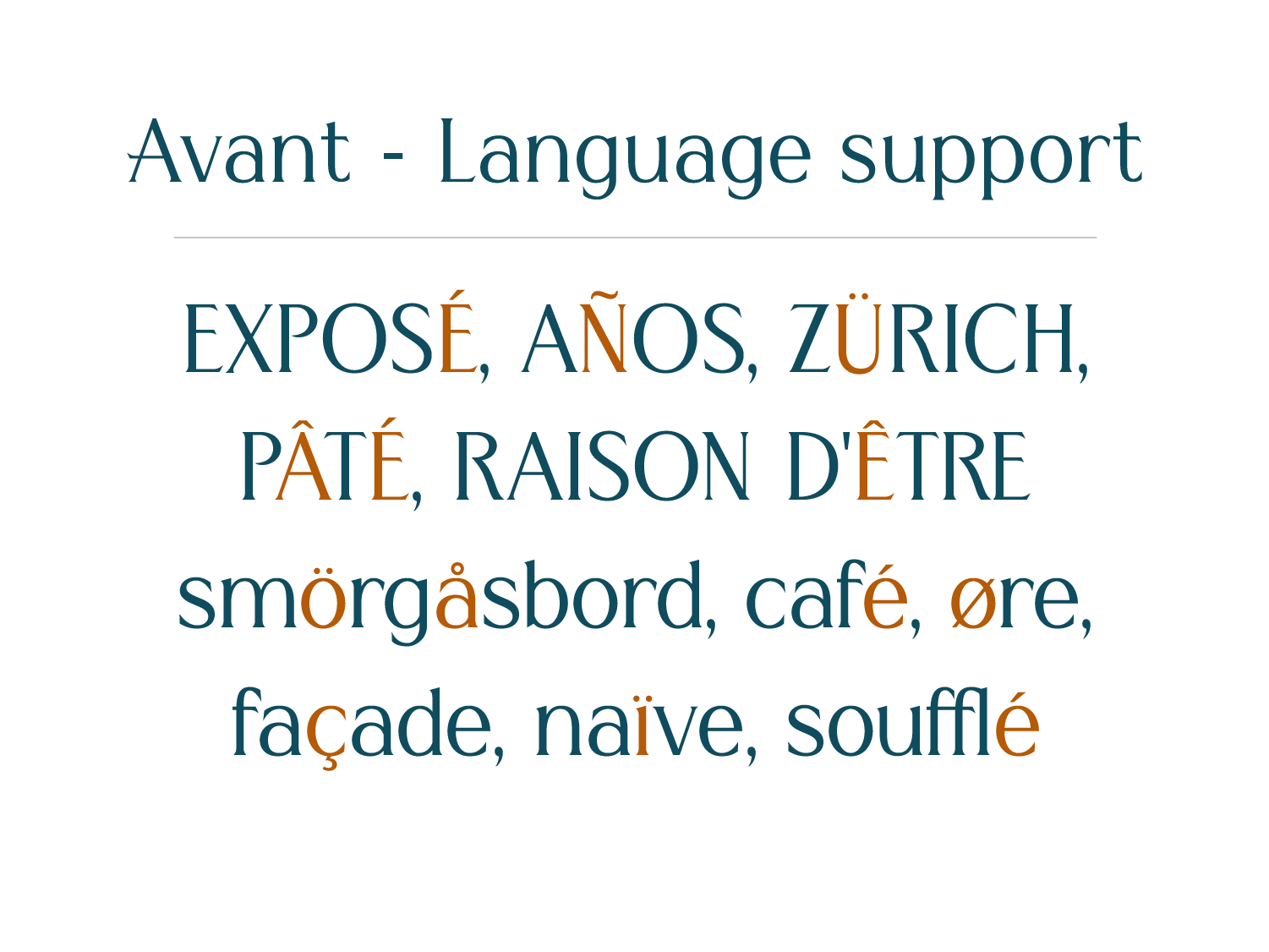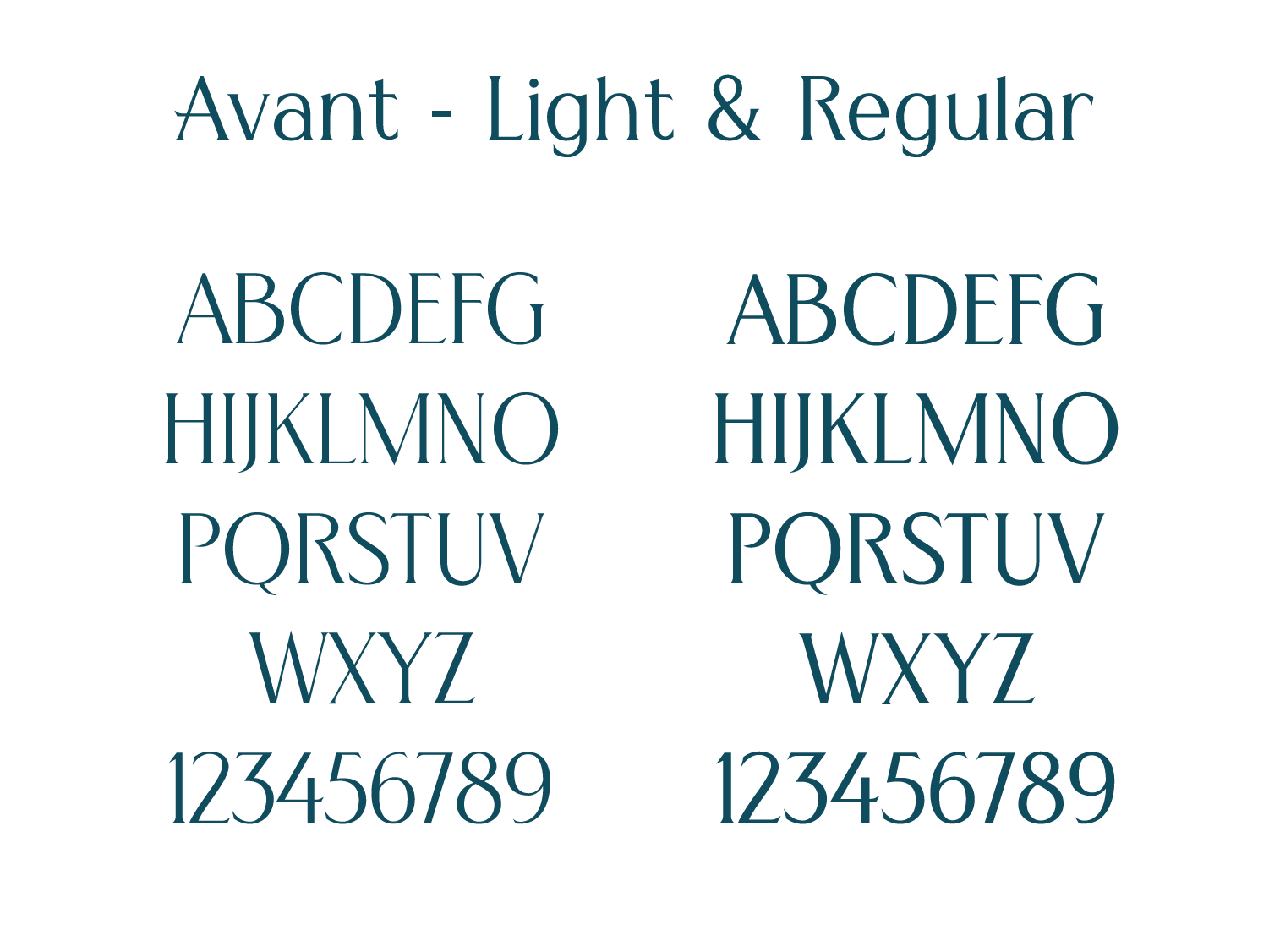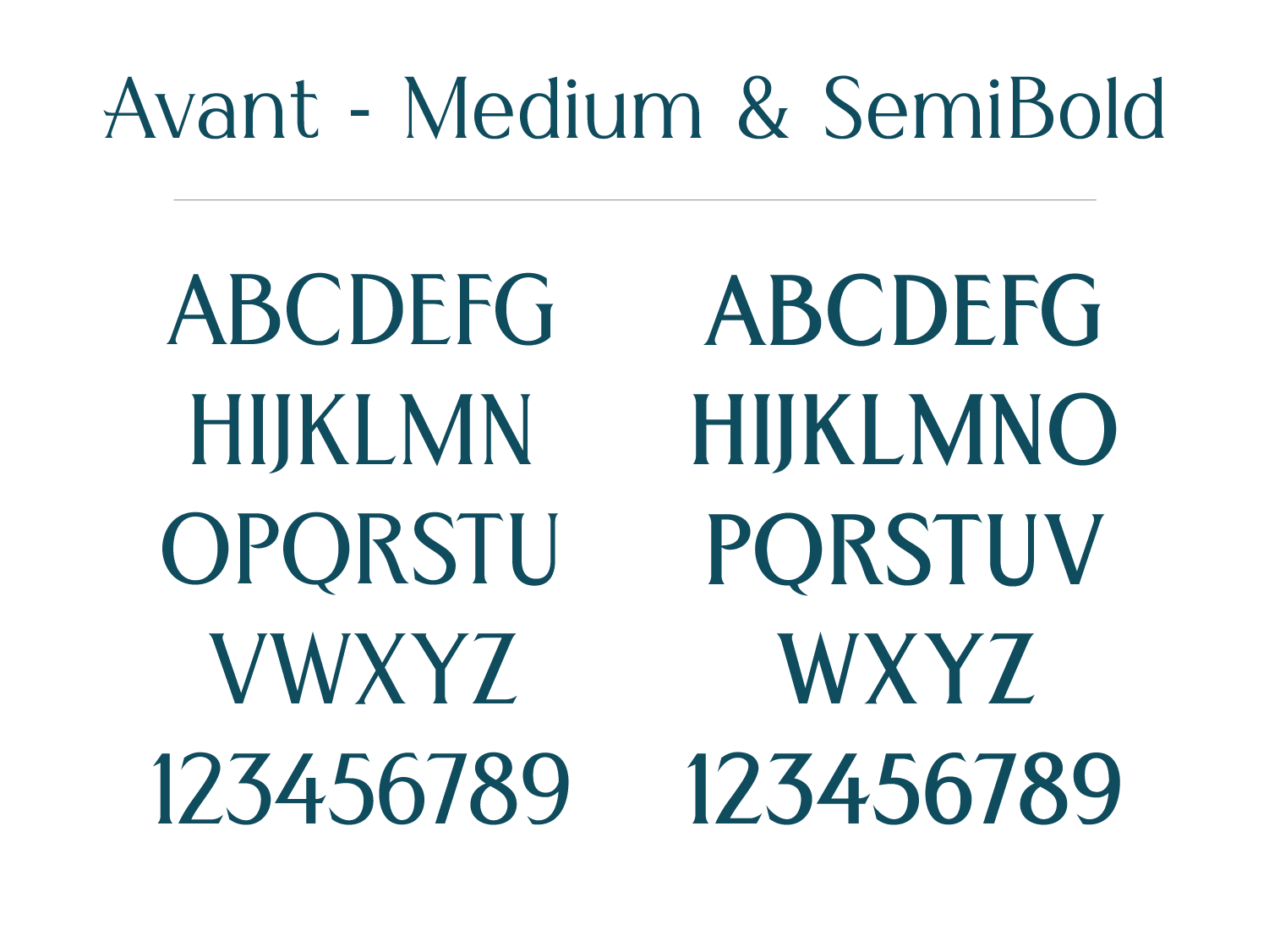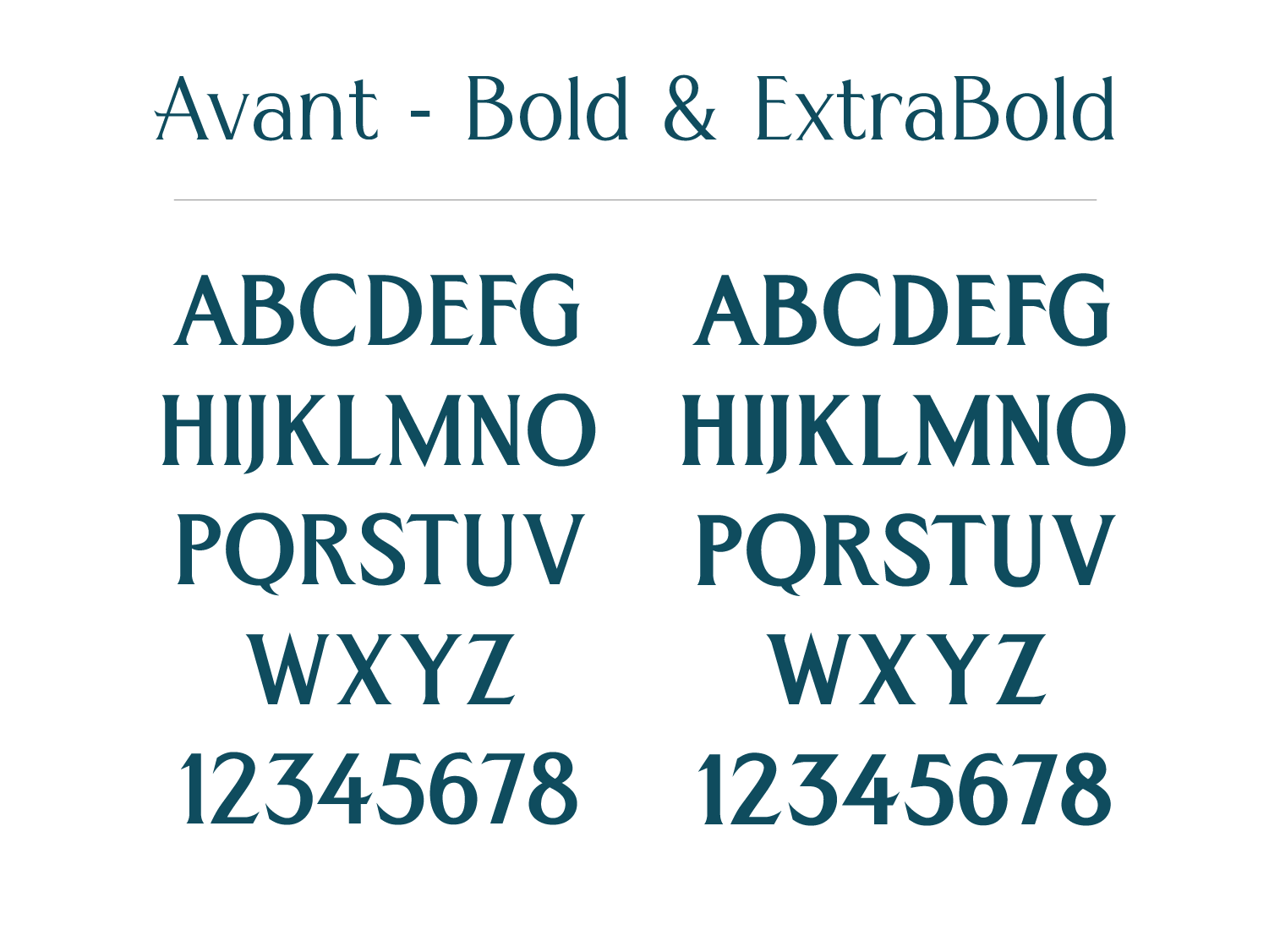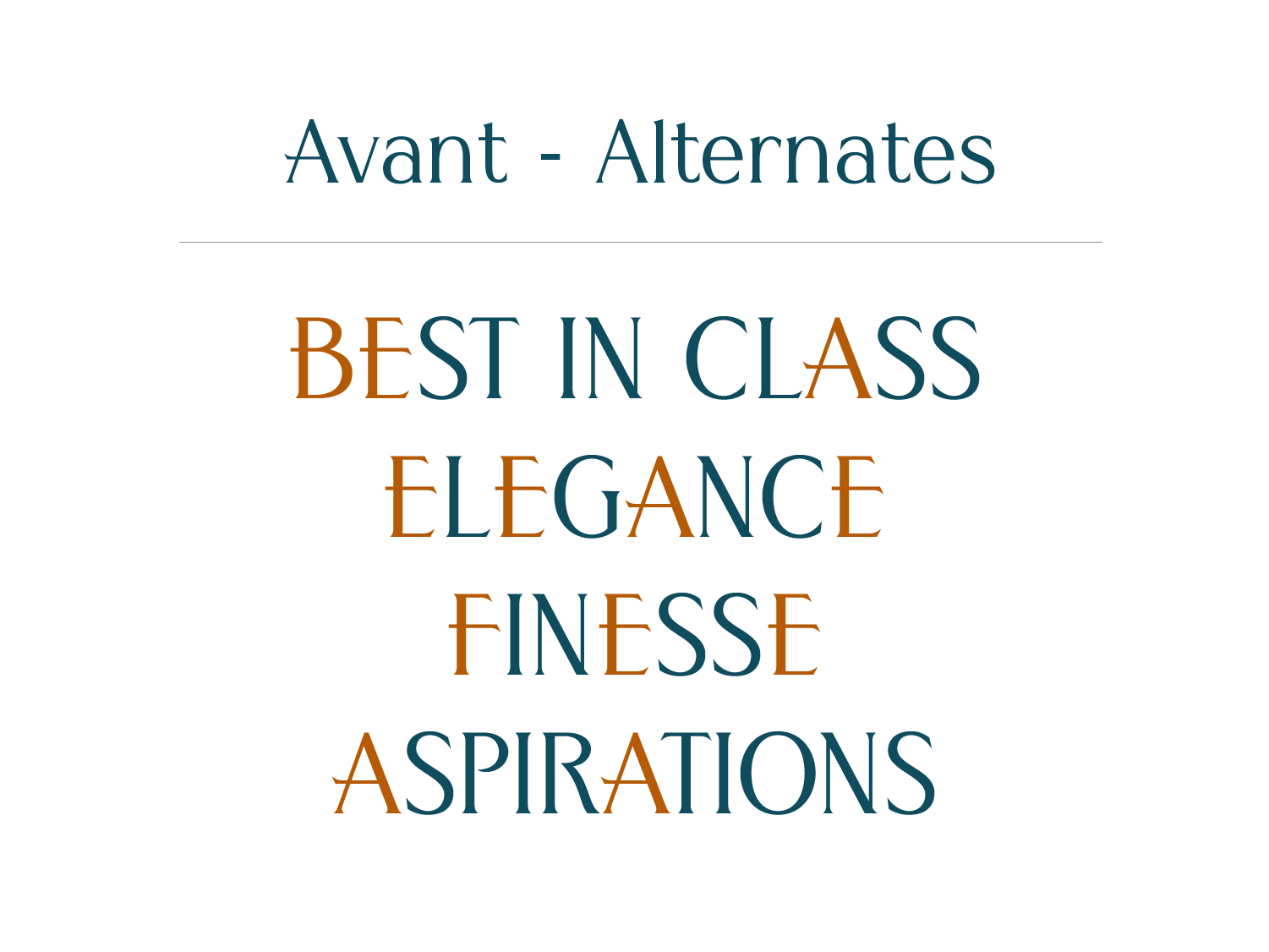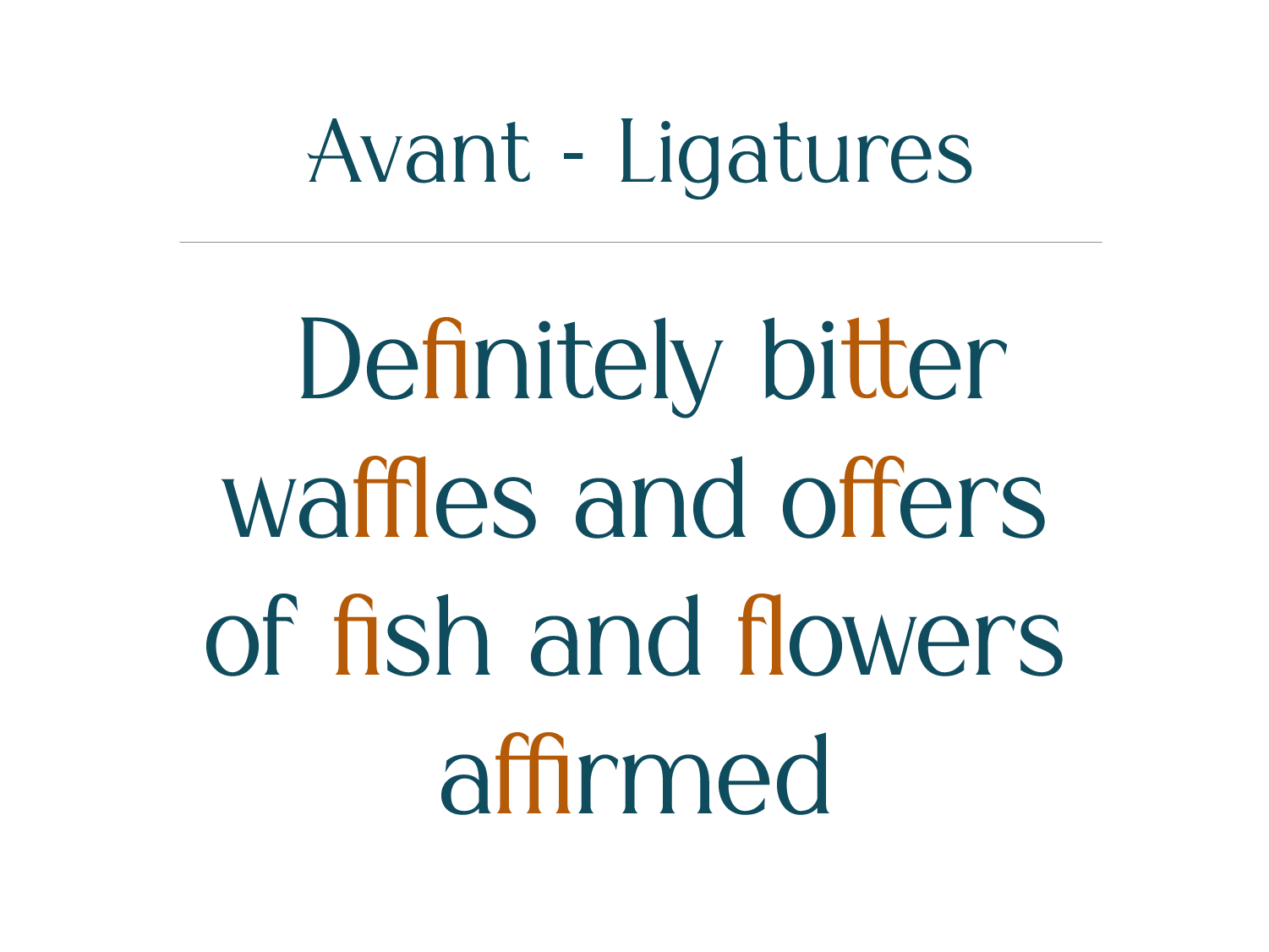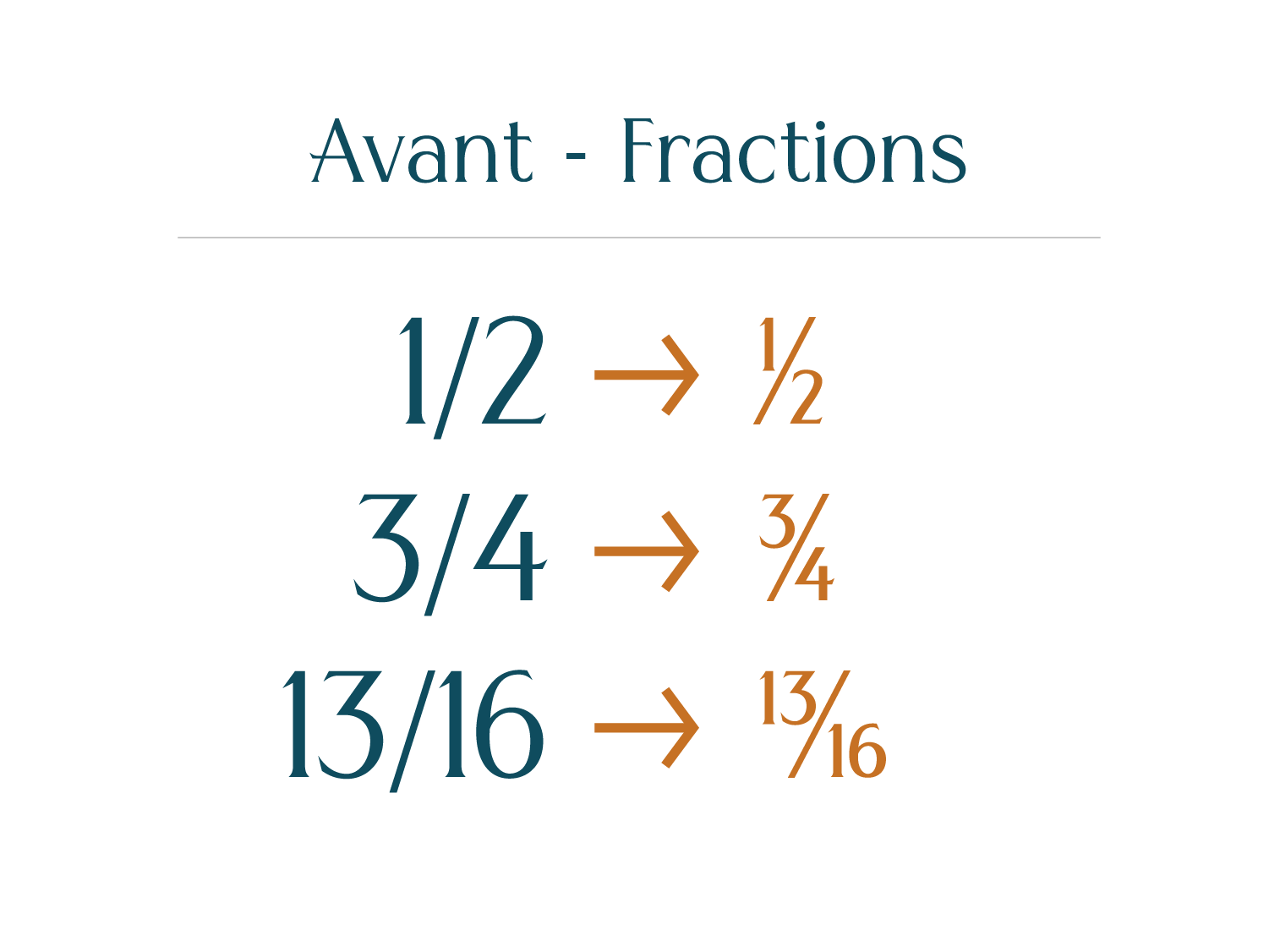
This font is based on an antique hand-lettered sign that I saw. I’m not sure who created the sign. I liked the style, and it had some interesting embellishments on several of the letters. This font looks great in all caps. The addition of lowercase gives it added flexibility.